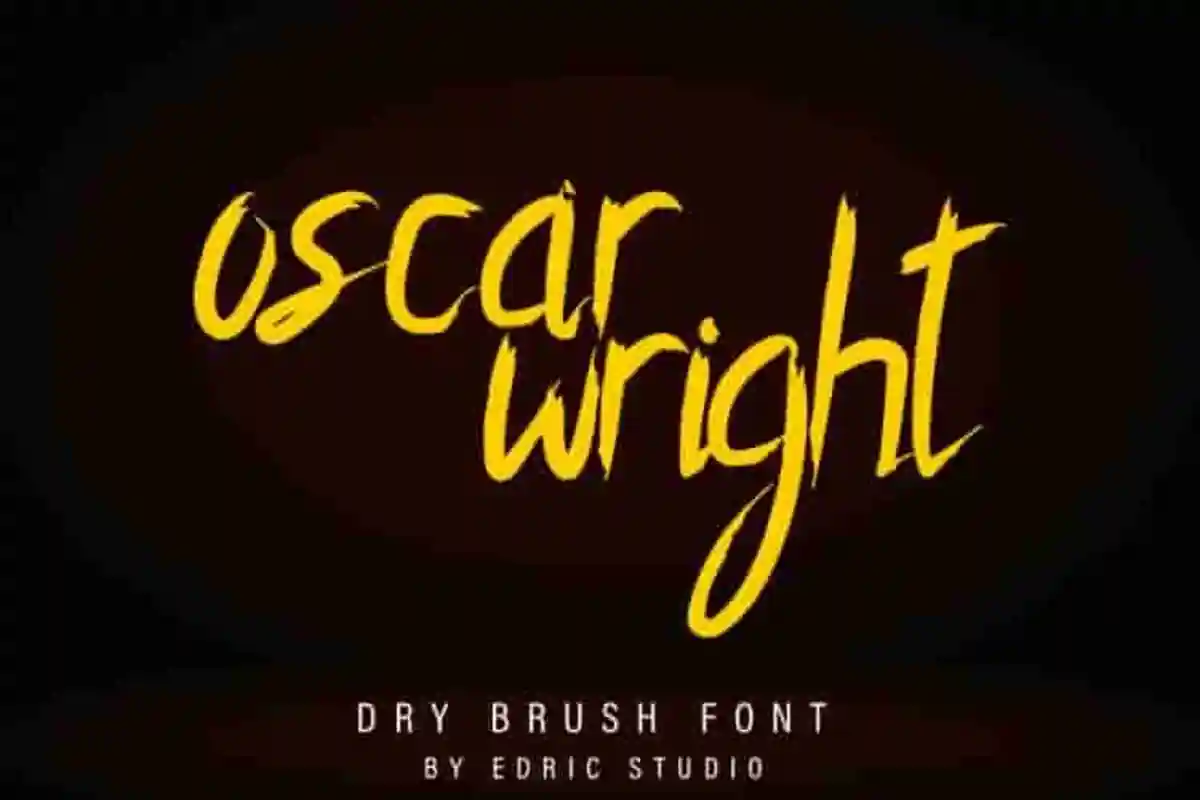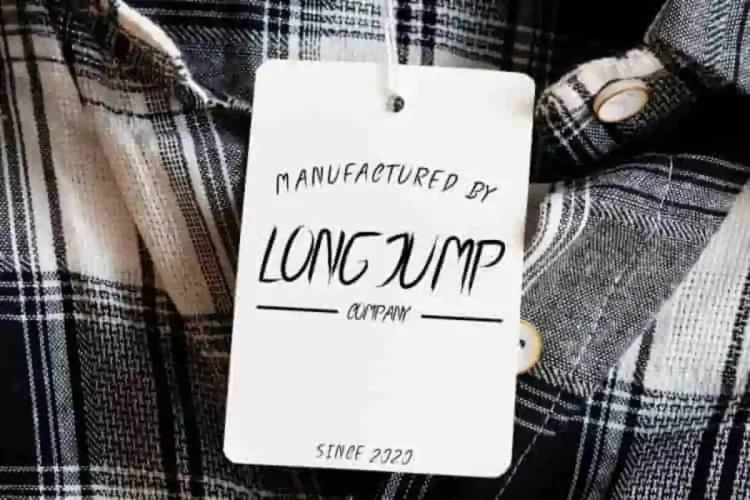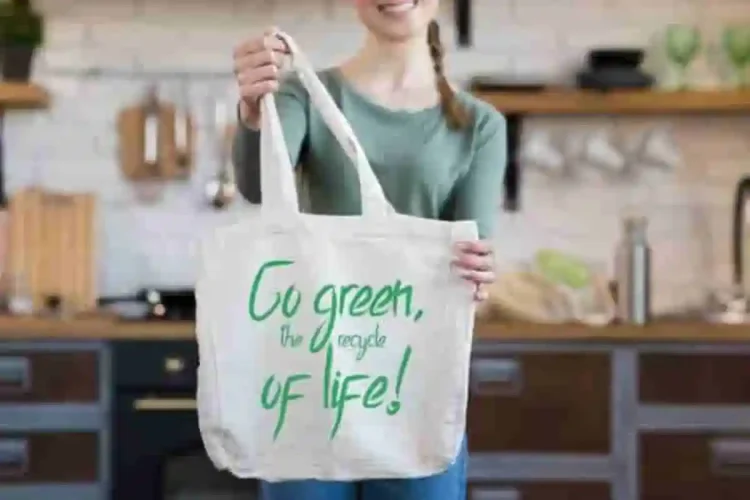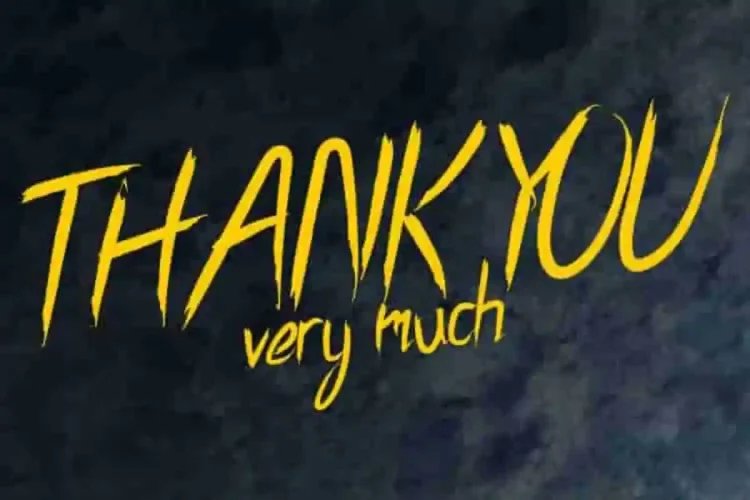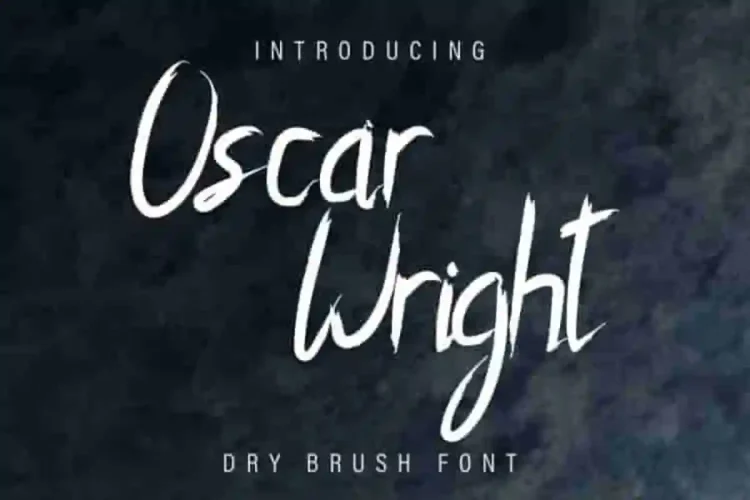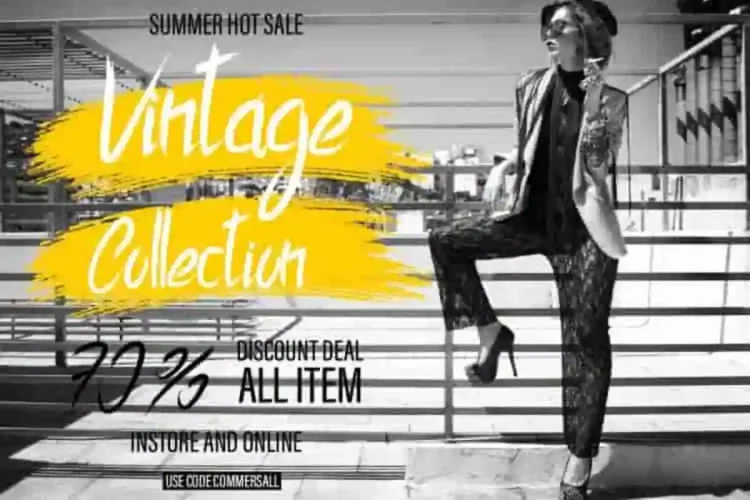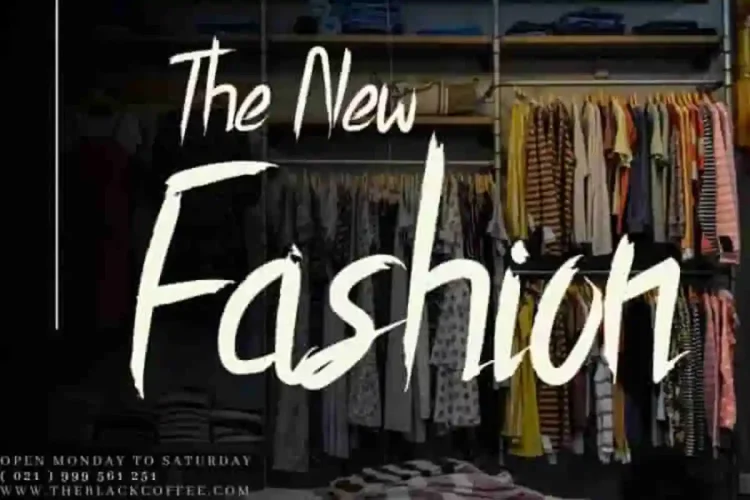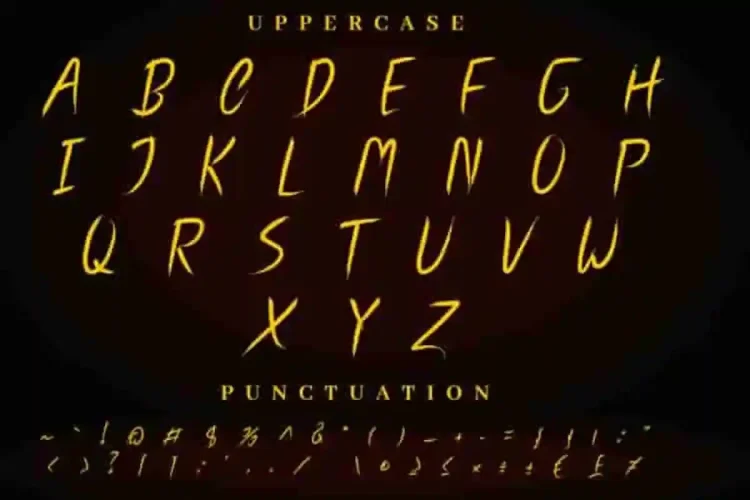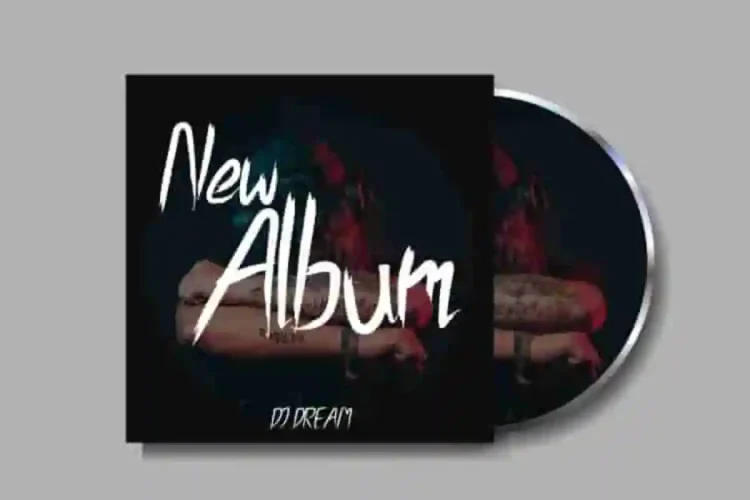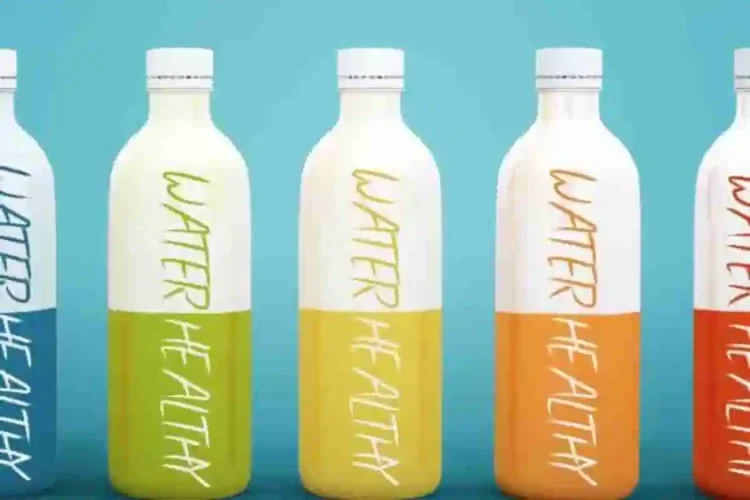
Oscar Wright Calligraphy Script Font
Introducing  : Oscar Wright Calligraphy Script Font
This is a display Calligraphy font, handcrafted from our Studio here in, Indonesia. The artists/designers of this awesome tyeface is Ega and Suci.
Oscar Wright Calligraphy Script Font is an unique calligraphy script typeface with dry rough brush style. This font has a stunning characters set, perfectly managed with well spaced and kerning. The theme style of this font will be horror, creepy, movie, games, vintage, band, music, film etc.
Oscar Wright Calligraphy Script Font will be great for any projects including : branding, logo, stationery, business card, signage, flyer, brochure etc.